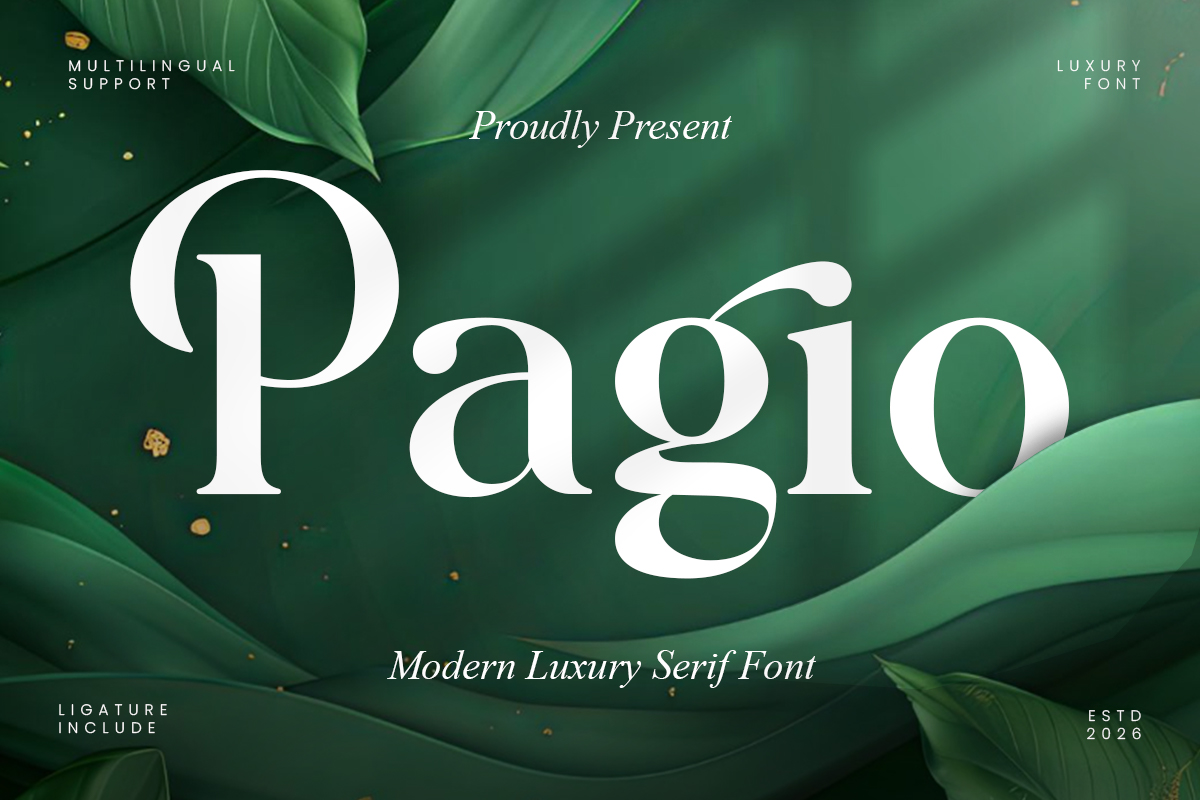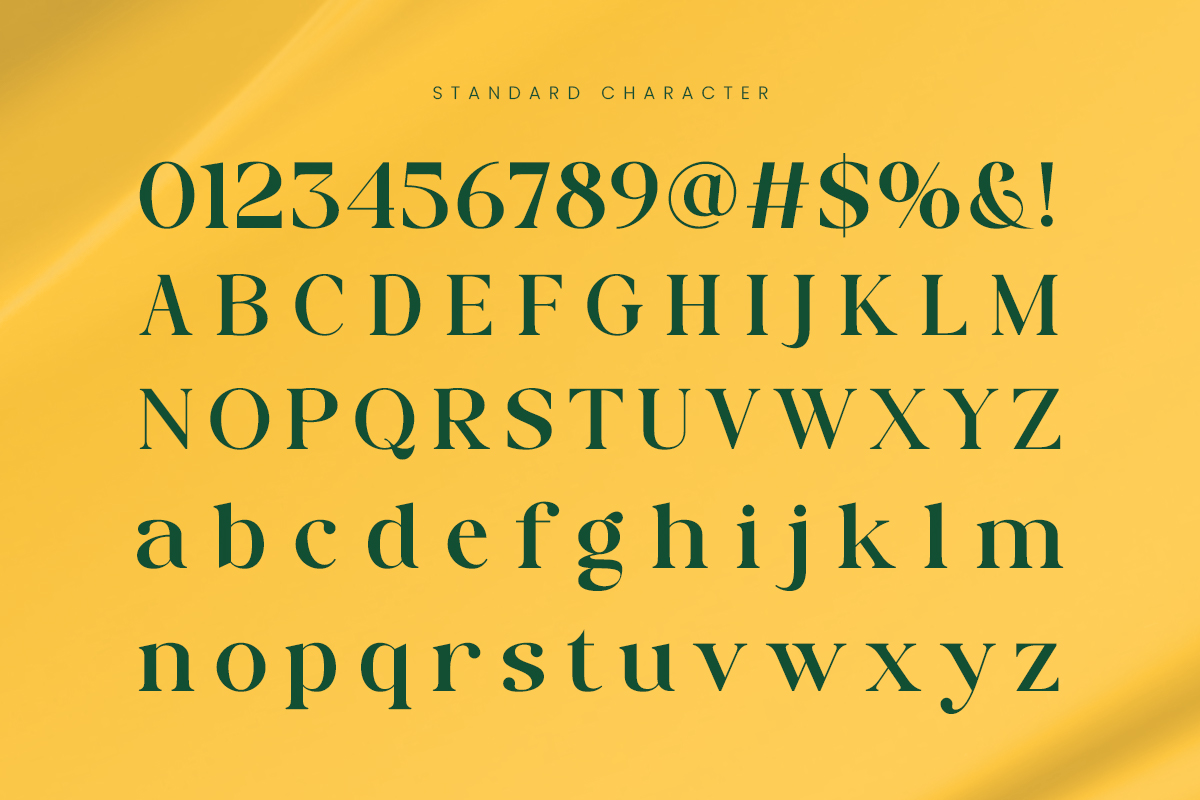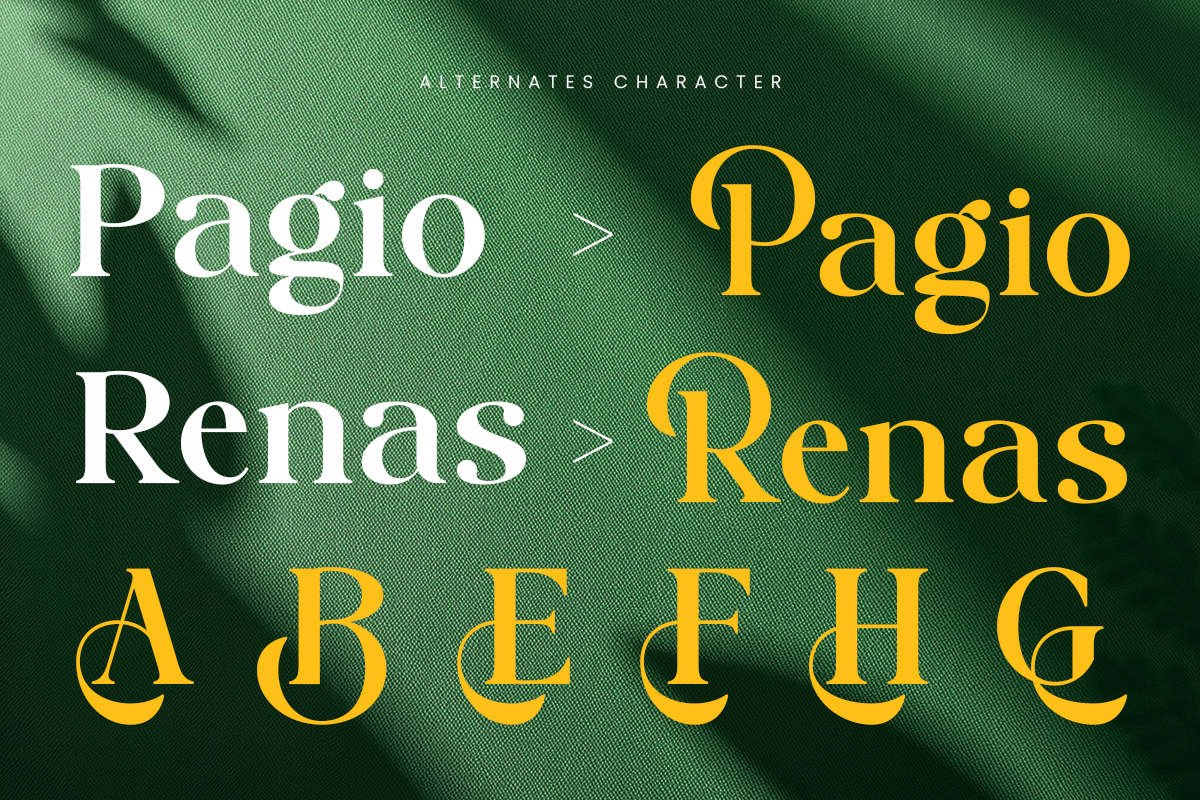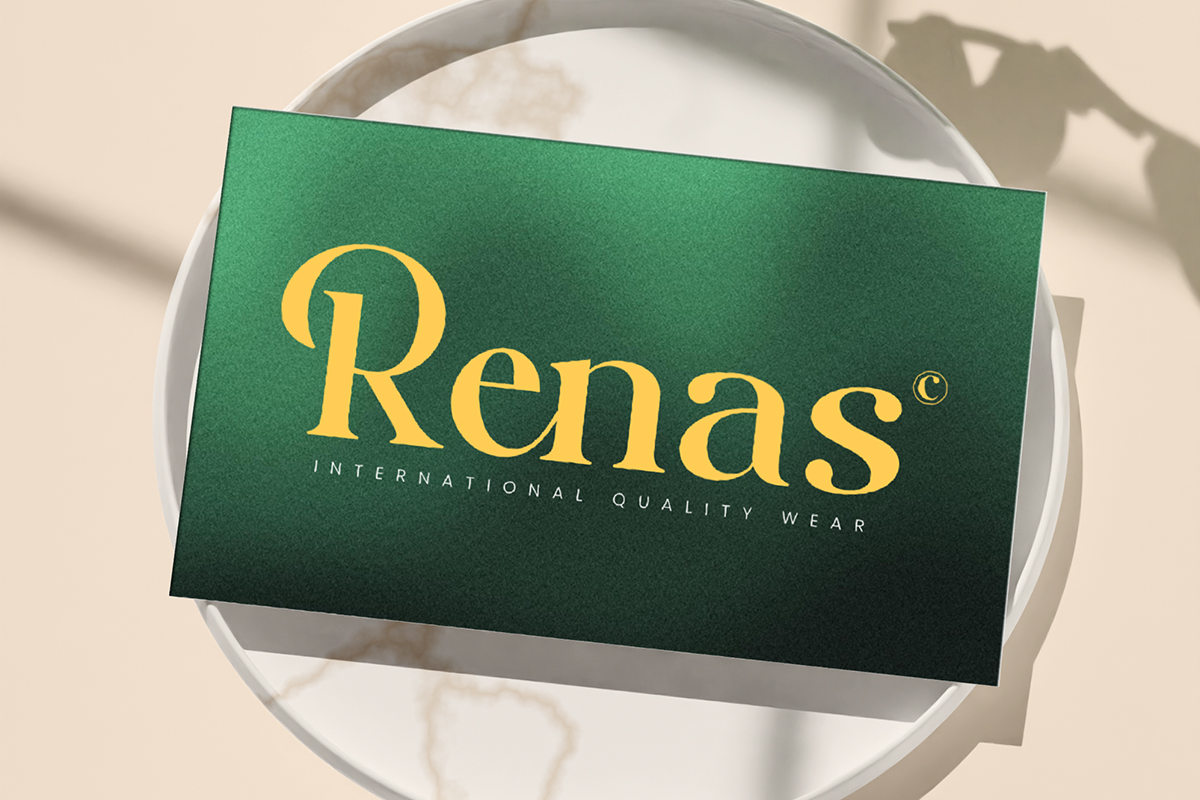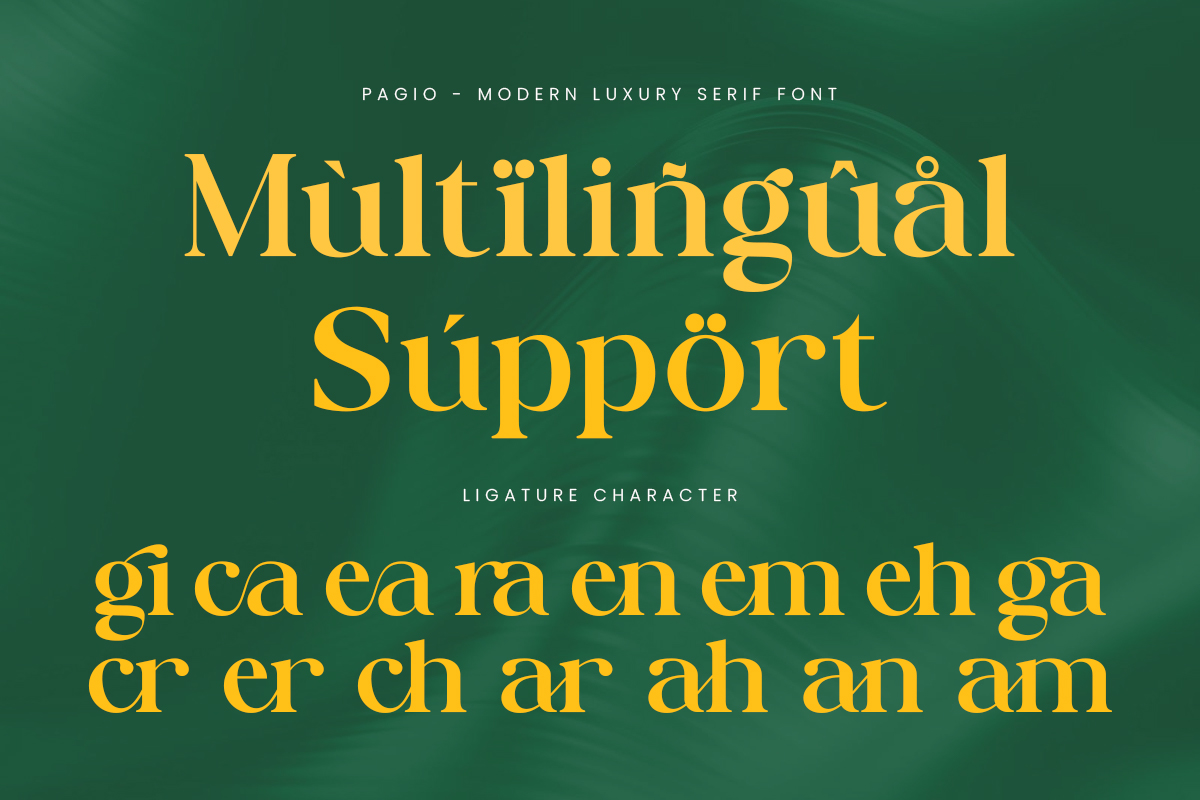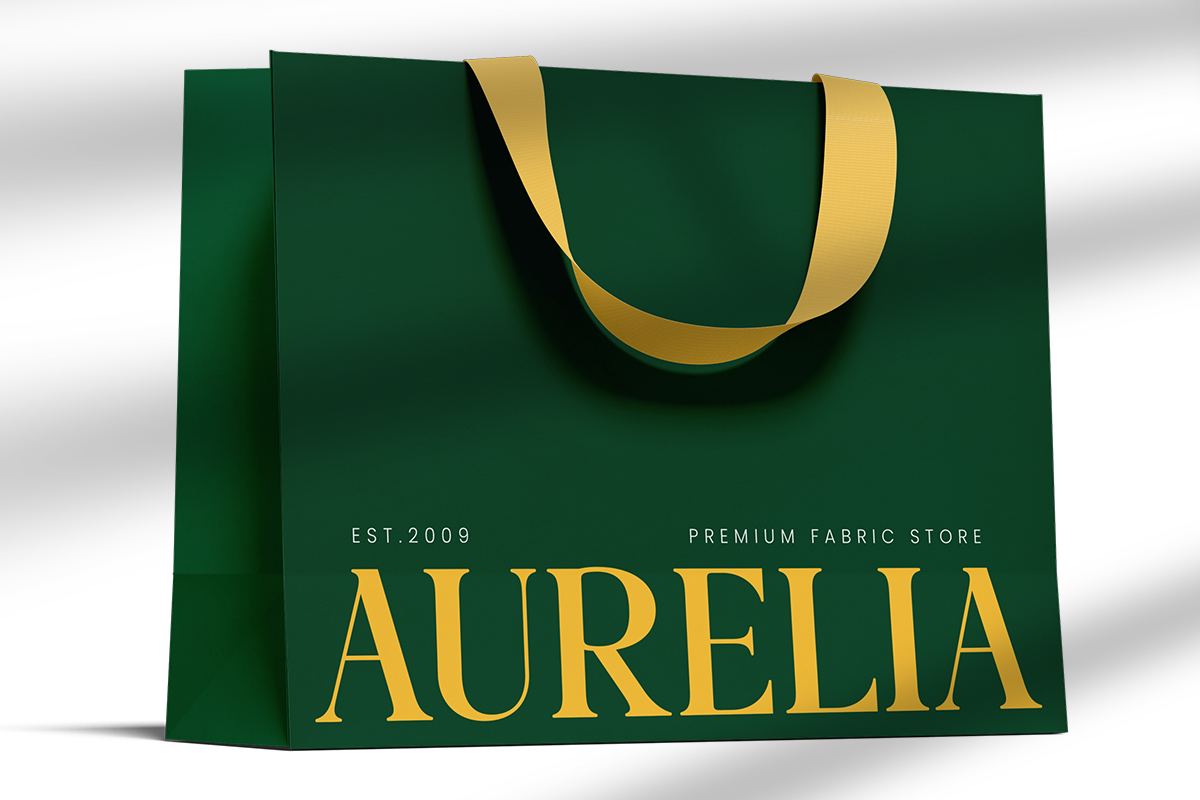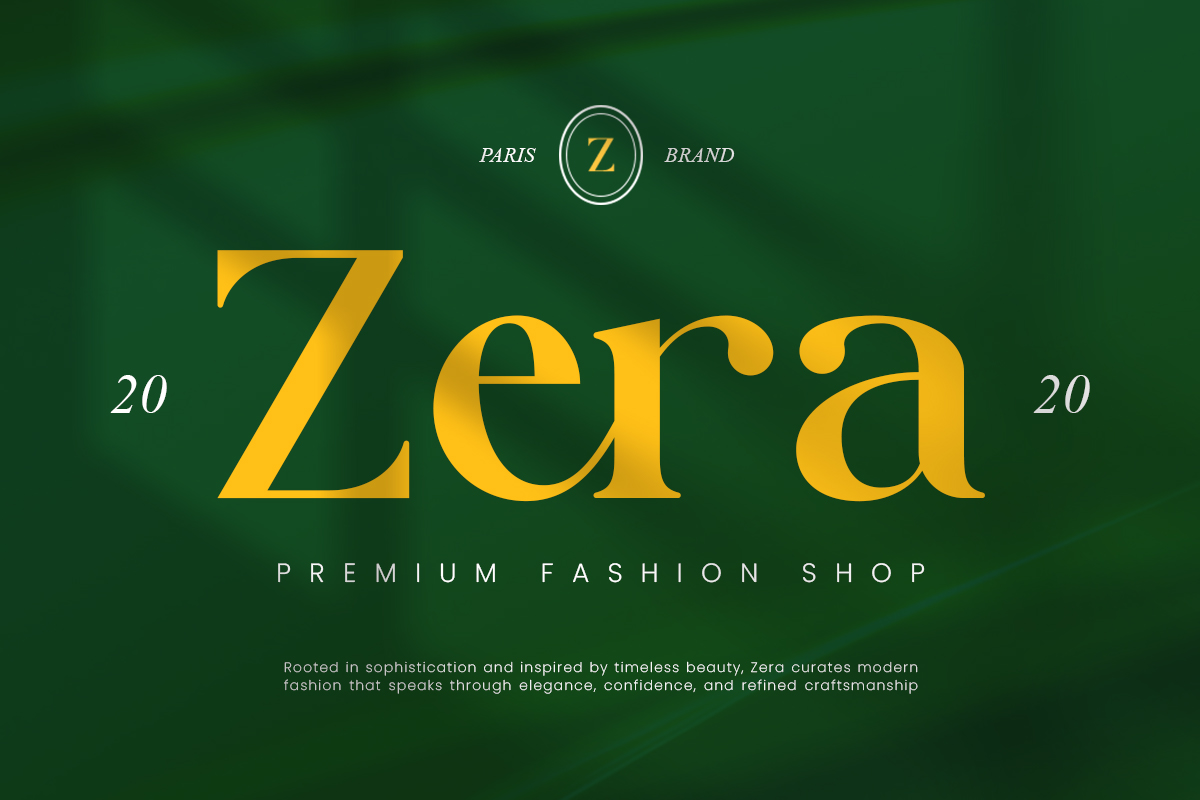
Pagio
Introducing **Pagio** the elegant, beautiful, and modern Serif. With its modern and minimalist look, Pagio brings a luxurious, classy, ​​and clean style to your projects such as websites, modern logos, brand identities, social media quotes, wedding stationery, magazines, and more!
Pagio features unique and classy capital letters A to Z and also comes with unique alternates and ligatures making Pagio a beautiful font that can be customized for various projects and jobs you want.
Pagio is perfect for: logos, brands, wedding invitations, business cards, greeting cards, posters, magazines, social media, agenda prints, and websites.
– ligatures & Alternates
Pagio – Modern Luxury Serif Font